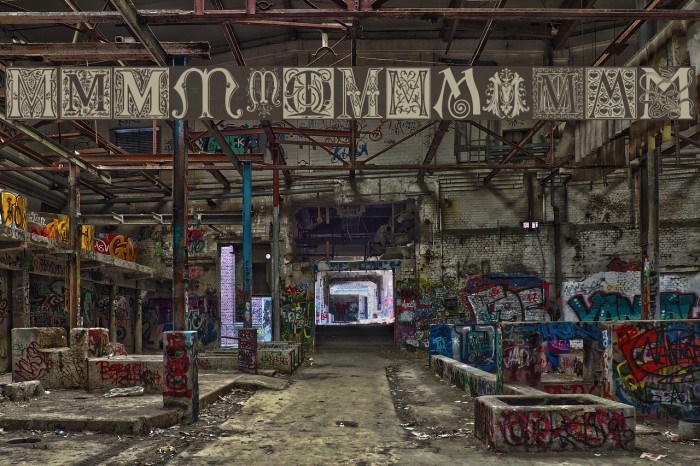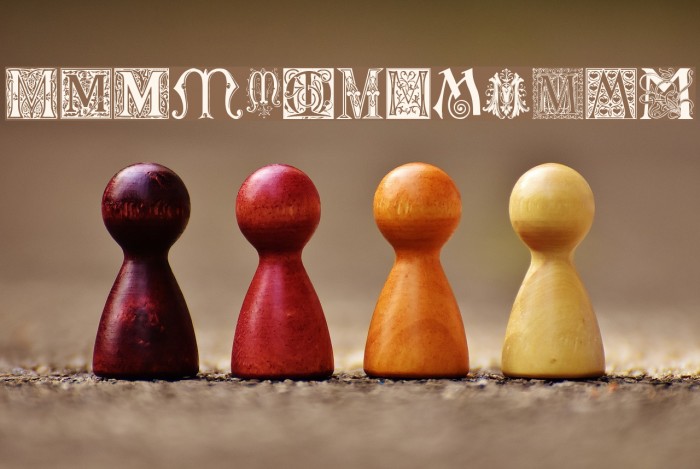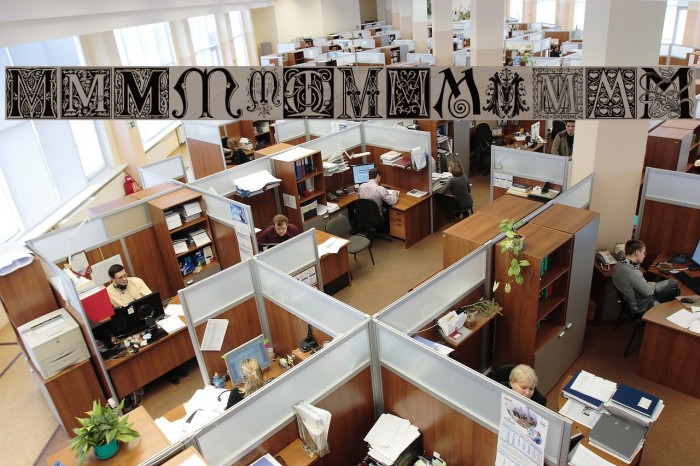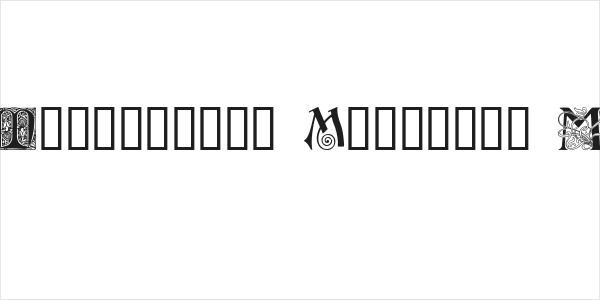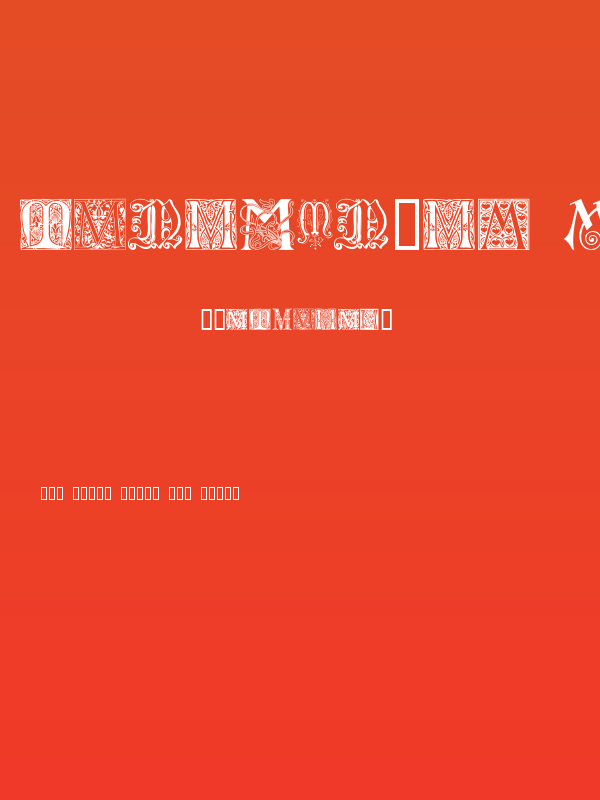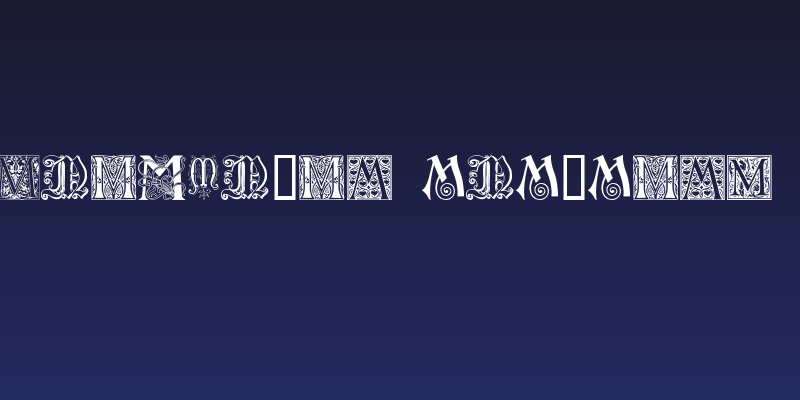
Ornamental Initials M Font
Ornamental Initials M Description
This font is a highly decorative and ornate style, characterized by intricate designs and embellishments surrounding each letter. The letters are enclosed in square frames, each featuring unique and elaborate patterns that give a sense of historical elegance and sophistication. The font is reminiscent of medieval manuscripts or vintage book covers, with each character serving as a piece of art. The detailed ornamentation includes floral motifs, swirling lines, and geometric shapes, making it ideal for projects that require a touch of classic grandeur and artistic flair.
| Use Case | Logos, Headlines, Decorative purposes |
| Proposed Projects | Ideal for use in wedding invitations, historical book covers, luxury branding, and decorative certificates. |